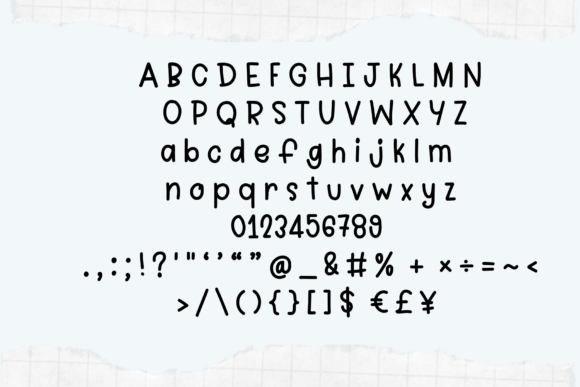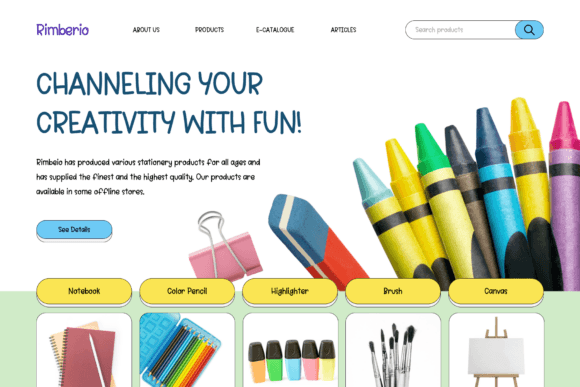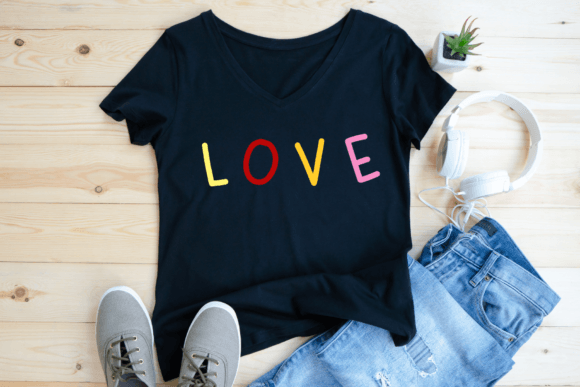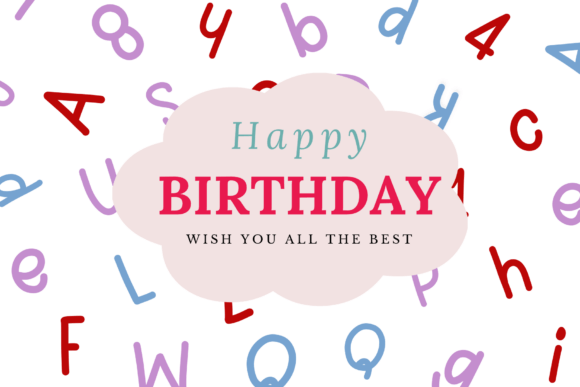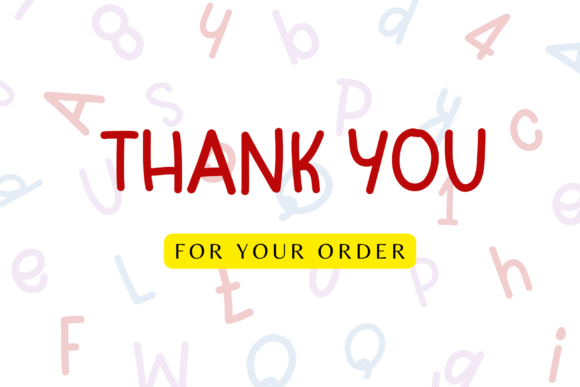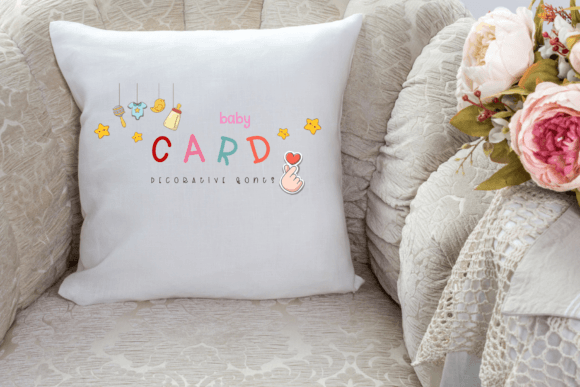
Introduction to Highlighter Font
Remember that moment when you stumbled upon a unique, handwritten font that made your design project stand out from the rest? It’s the spark that ignites creativity and inspires us to push the boundaries of our imagination. For designers, finding the right font can be a game-changer, and that’s exactly what we’re about to explore – the Highlighter Font.
This beautiful, free download is not just a design resource, but a treasure trove of creative possibilities. With its transparent background, you can seamlessly integrate it into any project, from banners and social media posts to greeting cards and mugs. Whether you’re working on a high-quality magazine or a personal journal, the Highlighter Font is sure to add that extra touch of personality and whimsy.
Key Features of Highlighter Font
- High-quality design resource with a unique, vibrant aesthetic, perfect for creative projects.
- Features a transparent background, allowing for seamless integration into any design.
- Includes a range of sizes and resolutions, from 72 dpi to 300 dpi, to suit various design needs.
- Designed to be highly legible and visually striking, making it ideal for use in digital and print media.
- Can be easily customized using font editing software, allowing for further creative expression.
Honest Review: Highlighter Font
As a designer, I’m always on the lookout for unique and high-quality design resources to elevate my creative projects. The Highlighter Font is one such find that I’m excited to share with you. It’s a free download that’s perfect for designers who want to add a pop of color and fun to their designs.
What works well about the Highlighter Font is its versatility. It comes in a range of colors and styles, making it easy to match with any design aesthetic. The font is also highly customizable, allowing you to adjust the size, color, and even the transparency of the text to suit your needs.
However, I do have a few limitations to note. The font may not be suitable for all types of designs, such as those with a minimalist or corporate theme. Additionally, the font may be a bit too playful for some designers’ tastes.
Overall, I’m impressed with the Highlighter Font. It’s a great addition to any designer’s toolkit, especially for creative projects that require a bit of flair. Just be sure to use it judiciously and consider your design’s overall aesthetic.
Highlighter Font
Introduction to Highlighter Font
The Highlighter Font is a versatile design resource ideal for creative projects. This free download offers a unique and eye-catching aesthetic that can elevate any design.
Designing with Highlighter Font
For a high-quality look, pair the Highlighter Font with a transparent background to create a striking visual effect. Experiment with different font sizes, colors, and arrangements to achieve the desired look for your creative project.
Tips for Getting the Most Out of Highlighter Font
To maximize the impact of the Highlighter Font, use it sparingly to draw attention to key elements in your design. Combine it with other design elements, such as images or graphics, to create a visually appealing composition.
The Highlighter Font is perfect for a variety of applications, including infographics, presentations, social media graphics, and educational materials. Its bright and playful appearance makes it an ideal choice for projects targeting a younger audience.